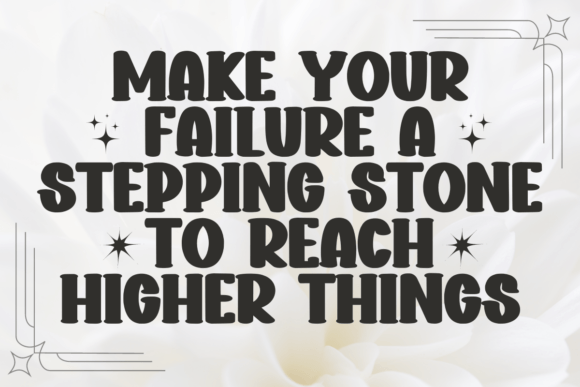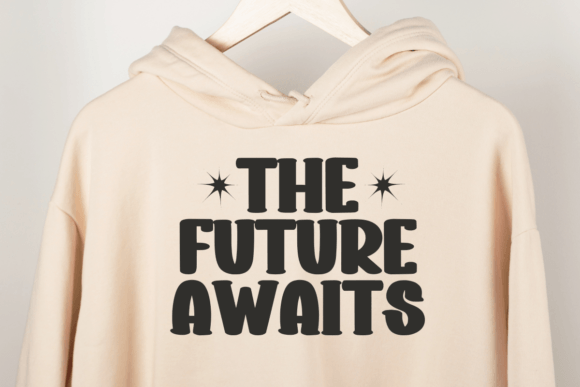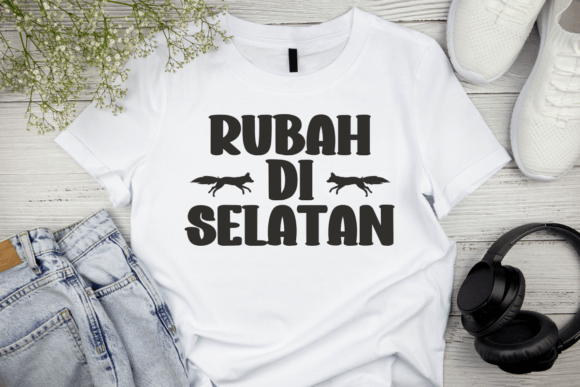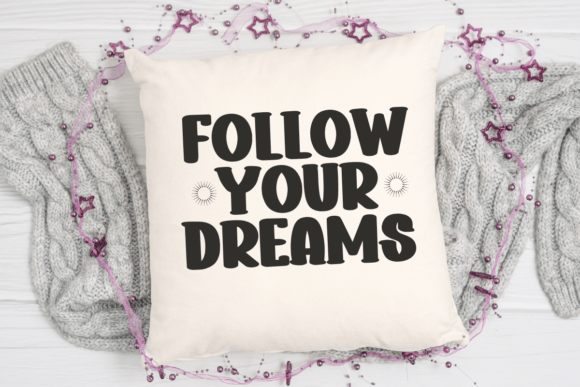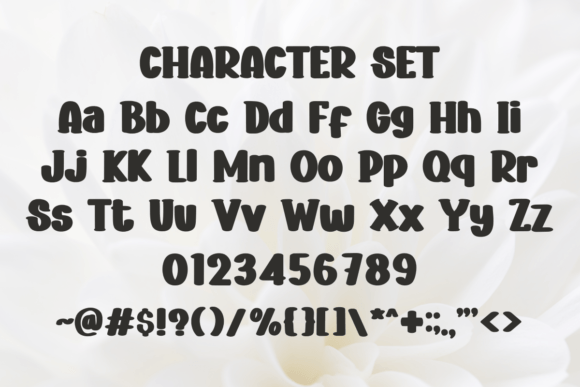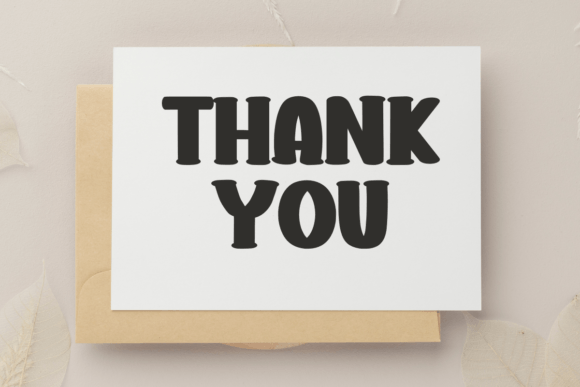
Unleash Your Creativity with Hello Thick Font
Have you ever stared at a blank canvas, searching for the perfect font to bring your design to life? The struggle is real, but today we’re here to help. Whether you’re a seasoned designer or a creative enthusiast, finding the right font can make all the difference between a good design and a great one.
Enter Hello Thick Font, a playful slab serif font that’s guaranteed to grab attention. With its wide characters and chunky serifs, this font is perfect for eye-catching designs that demand to be seen. From headlines to product labels, Hello Thick Font is the ultimate go-to font for designers who want to add some personality to their work.
Hello Thick Font Key Features
- Font Style: Hello Thick Font is a sans-serif, bold font designed to make text stand out.
- Unique Characteristics: Features a unique, bold design that makes text highly readable, even at small font sizes.
Hello Thick Font Review
I recently had the chance to try out the Hello Thick Font, and I have to say, I’m still on the fence about it. While it has some great features, it also has some limitations that might make it hard to use in certain situations.
- ✨ Unique aesthetic: Hello Thick Font has a distinct, bold look that’s sure to grab attention. It’s perfect for making headlines or creating a bold statement.
- ⚠️ Limited character set: The font is limited to a relatively small character set, which can make it difficult to use for extended blocks of text.
- ⚠️ Not suitable for body text: Due to its bold nature, Hello Thick Font isn’t the best choice for body text, as it can be difficult to read.
Overall, I think Hello Thick Font is a solid choice for making bold statements or creating eye-catching headlines. However, it’s not the best choice for extended blocks of text or body copy. If you’re looking for a font to add some visual interest to your design, Hello Thick Font might be worth a try.
Hello Thick Font is commonly used for:
- Creating eye-catching headlines and titles.
- Adding emphasis to key messages or calls-to-action.
- Designing promotional materials, such as posters and flyers.
Tips for Getting the Most Out of Hello Thick Font
Here are some tips for using Hello Thick Font effectively:
- Use it sparingly to avoid overwhelming the design.
- Pair it with other fonts to create a visually appealing combination.
- Experiment with different
Alternatives to Hello Thick Font
Bebas Neue is a sans-serif font that features a thick and bold appearance, making it a suitable alternative to Hello Thick Font. It is ideal for use in headings and titles where a strong and attention-grabbing font is needed. Bebas Neue is more modern and sleek compared to Hello Thick Font, which has a more distressed look.
Great Vibes is a script font that offers a thick and elegant appearance. It is suitable for use in creative and artistic projects where a unique and eye-catching font is required. Great Vibes is more cursive and flowing compared to Hello Thick Font, which has a more blocky and bold appearance.
Rock Salt is a distressed font that features a thick and rough appearance. It is ideal for use in projects where a vintage or retro look is desired. Rock Salt is more textured and weathered compared to Hello Thick Font, which has a more uniform and bold appearance.
Playfair Display is a luxurious font that features a thick and elegant appearance. It is suitable for use in high-end projects where a sophisticated and refined font is required. Playfair Display is more ornate and decorative compared to Hello Thick Font, which has a more straightforward and bold appearance.